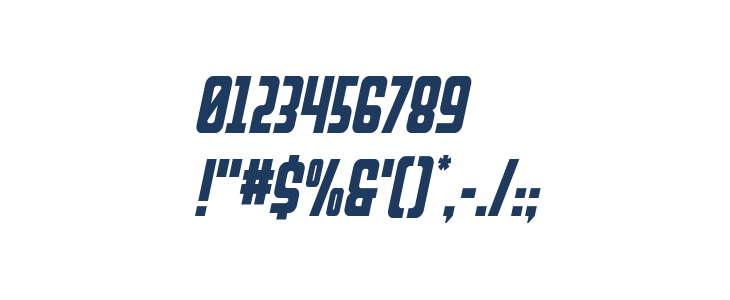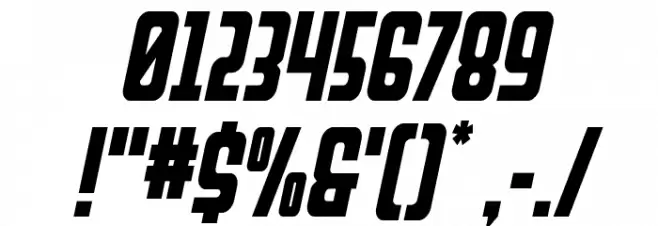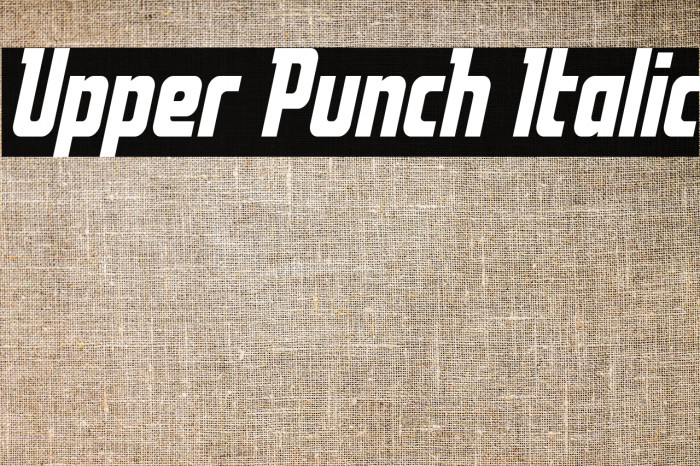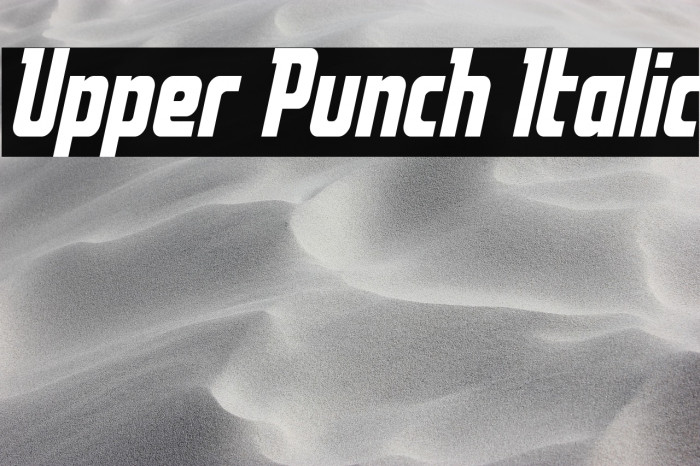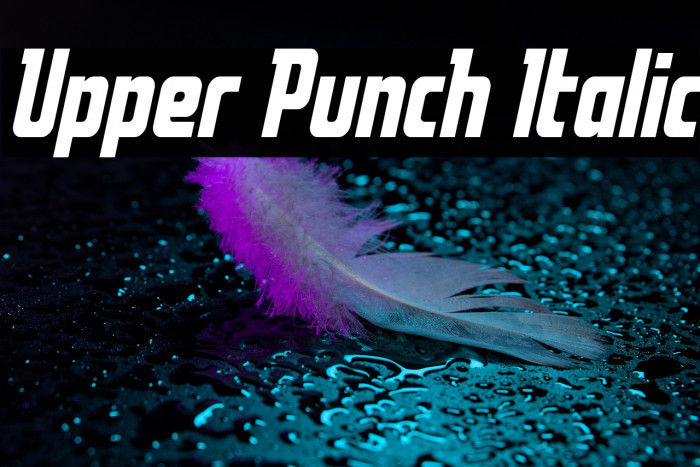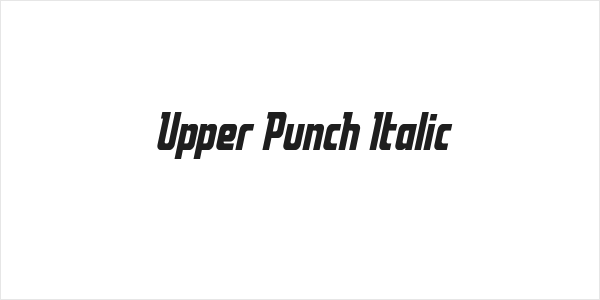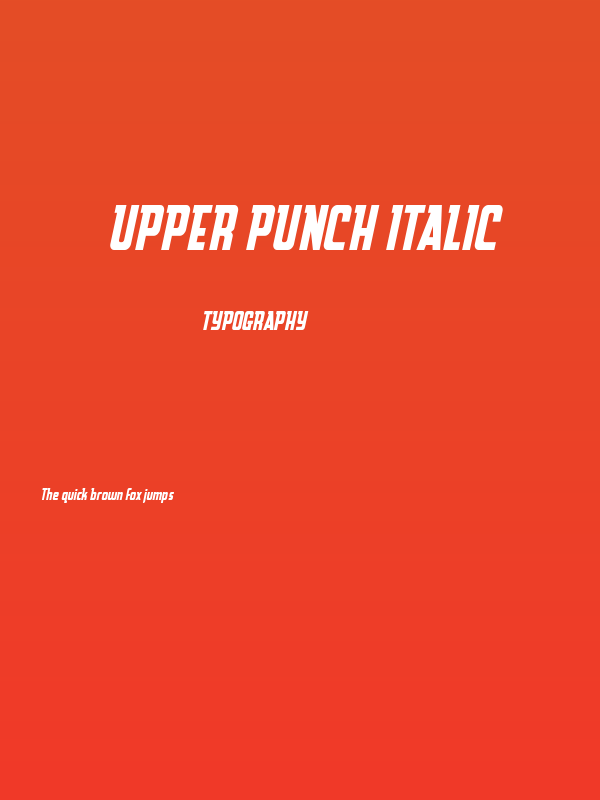
Upper Punch Italic Font
Upper Punch Italic Description
This font features a bold, italicized style with a strong, dynamic presence. The characters are slightly condensed, giving a compact and powerful look. The strokes are thick, providing high contrast and making the font stand out prominently. The slanted design adds a sense of motion and energy, making it suitable for impactful and attention-grabbing text. The uppercase and lowercase letters maintain a consistent style, with sharp angles and clean lines. The numerals and special characters are designed to match the overall bold and italicized aesthetic, ensuring uniformity across all elements.
| Proposed Projects | Ideal for sports branding, action-themed posters, dynamic logos, and headlines that need to convey strength and movement. |